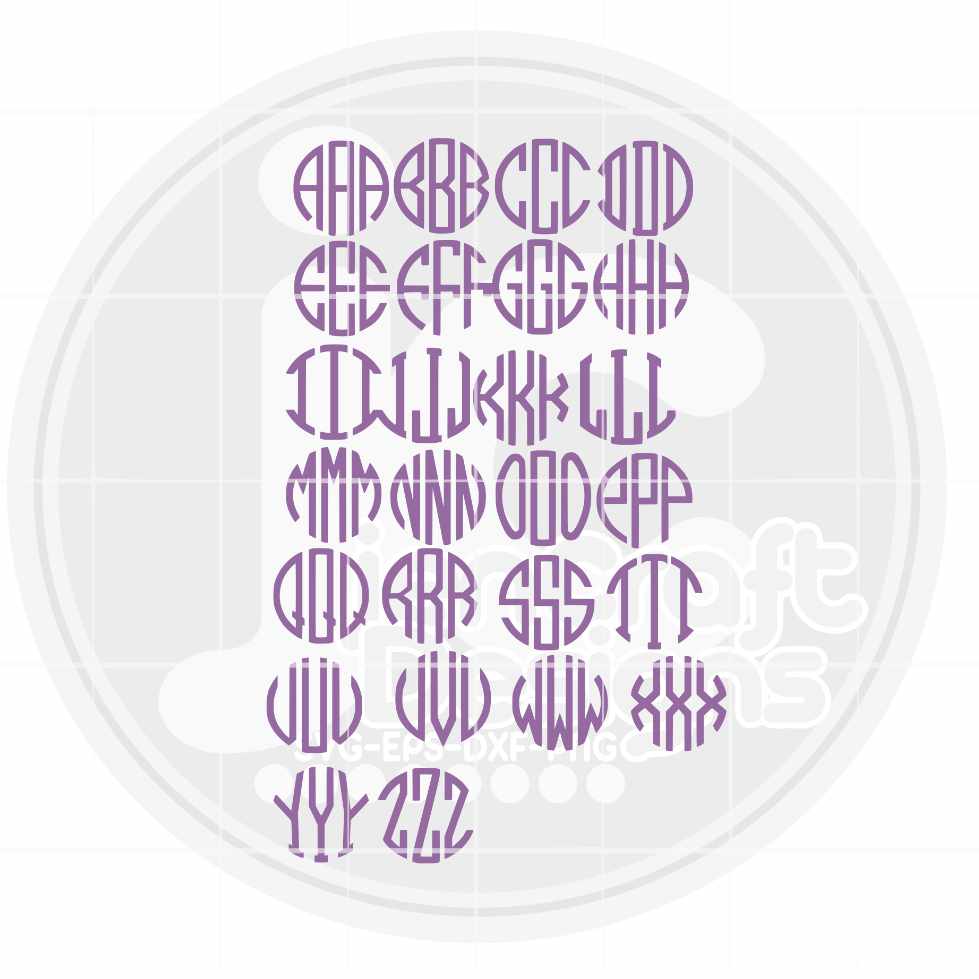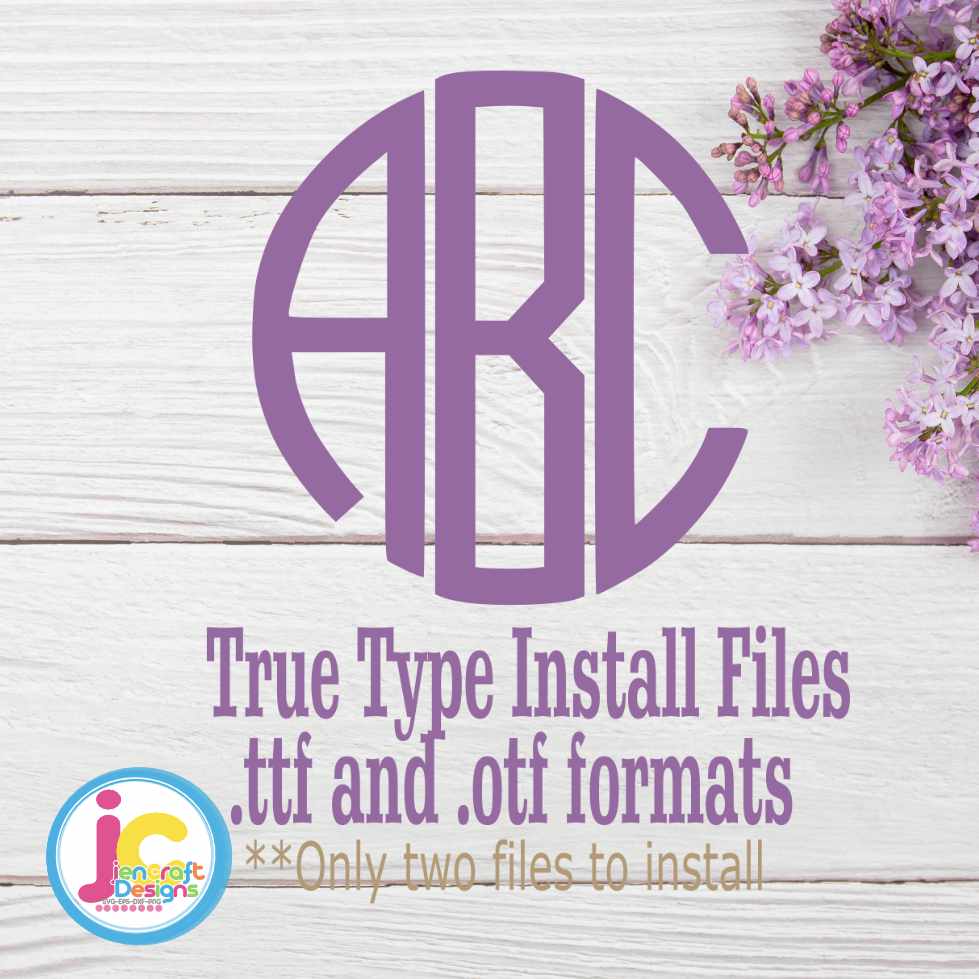
Round Monogram Font | TTF & OTF Installable System Font
Tip: Type lowercase for outer letters and UPPERCASE for the center letter to achieve the classic monogram look. Letters can be ungrouped in Cricut and Silhouette to adjust spacing.